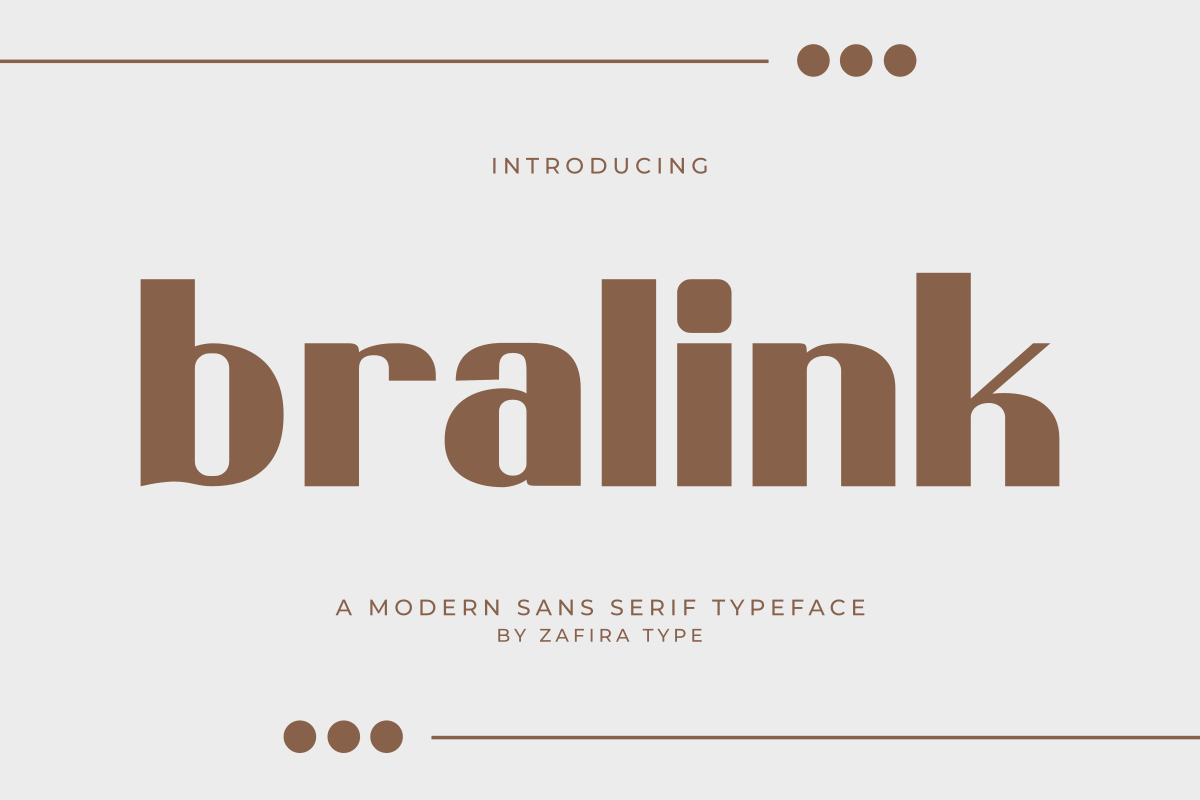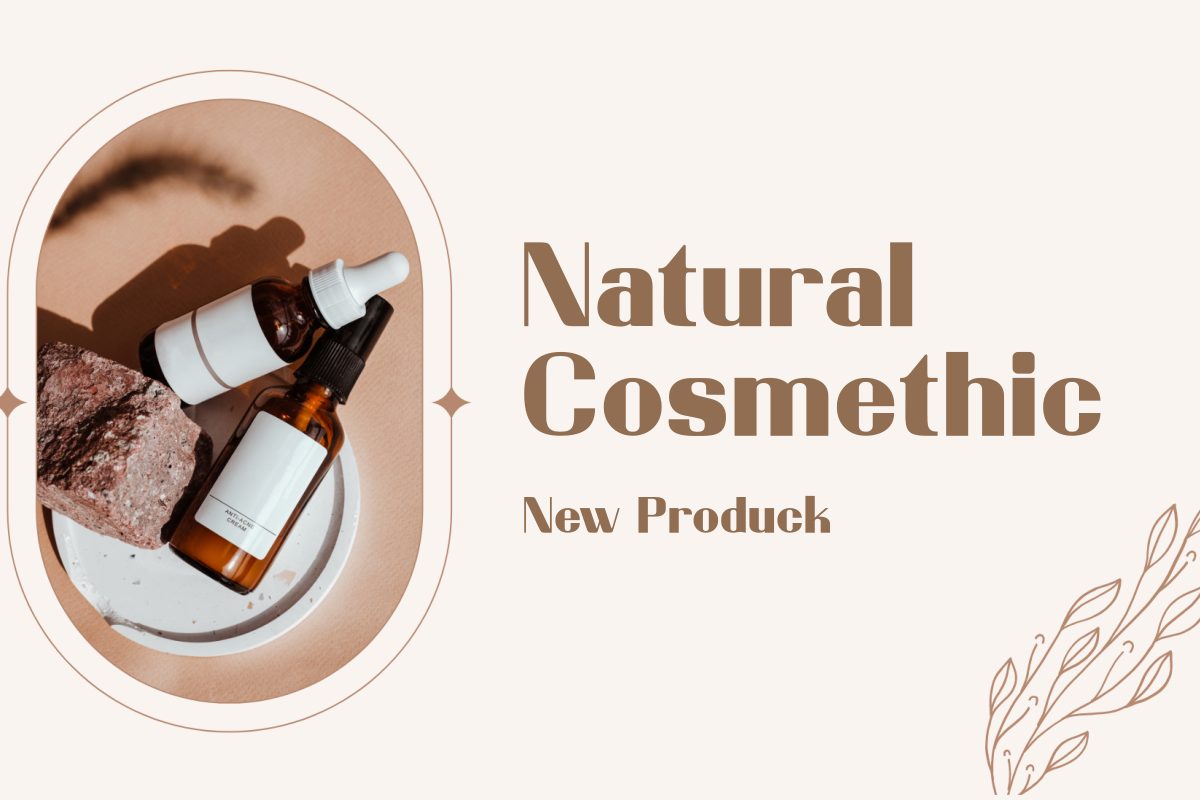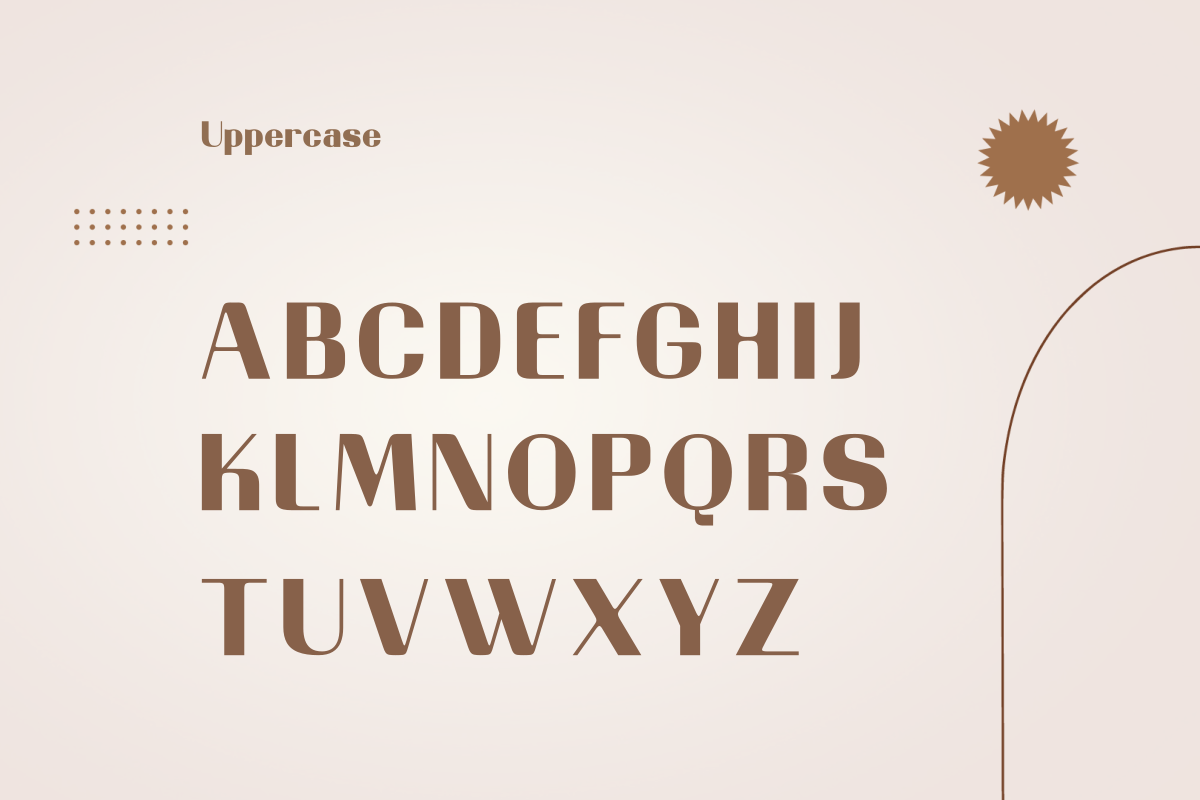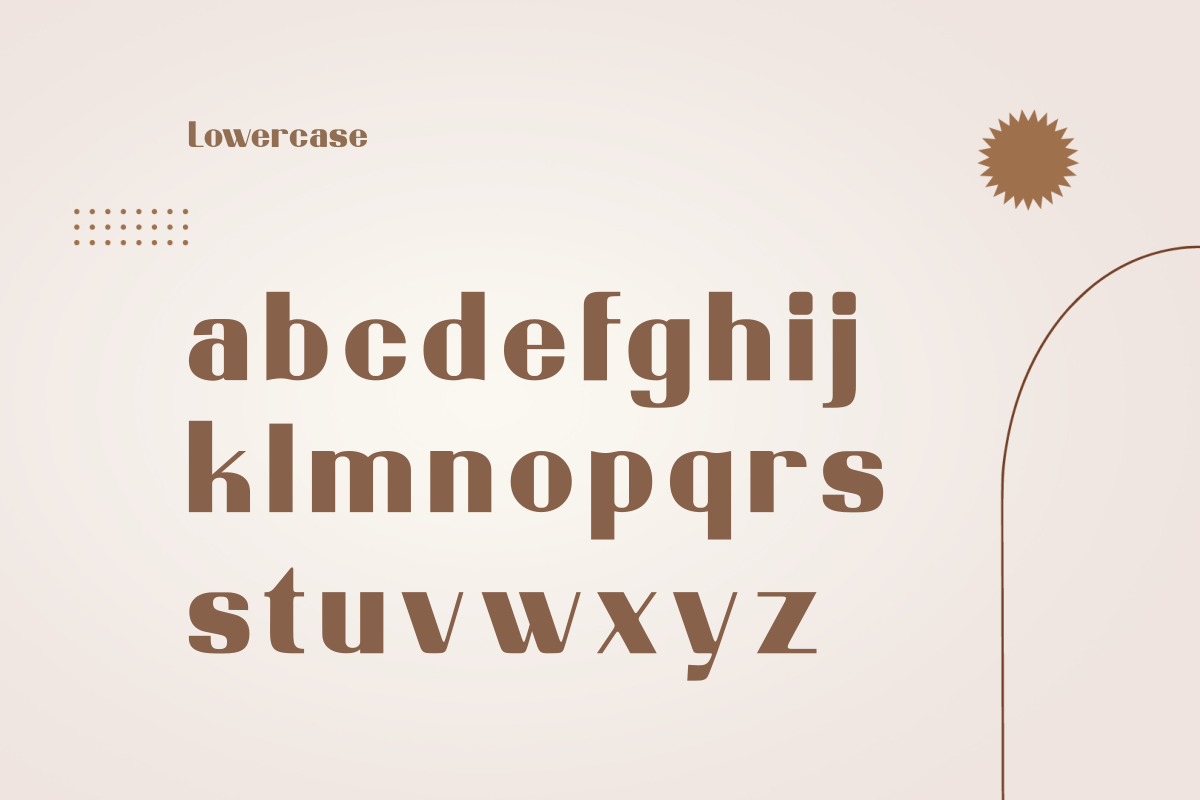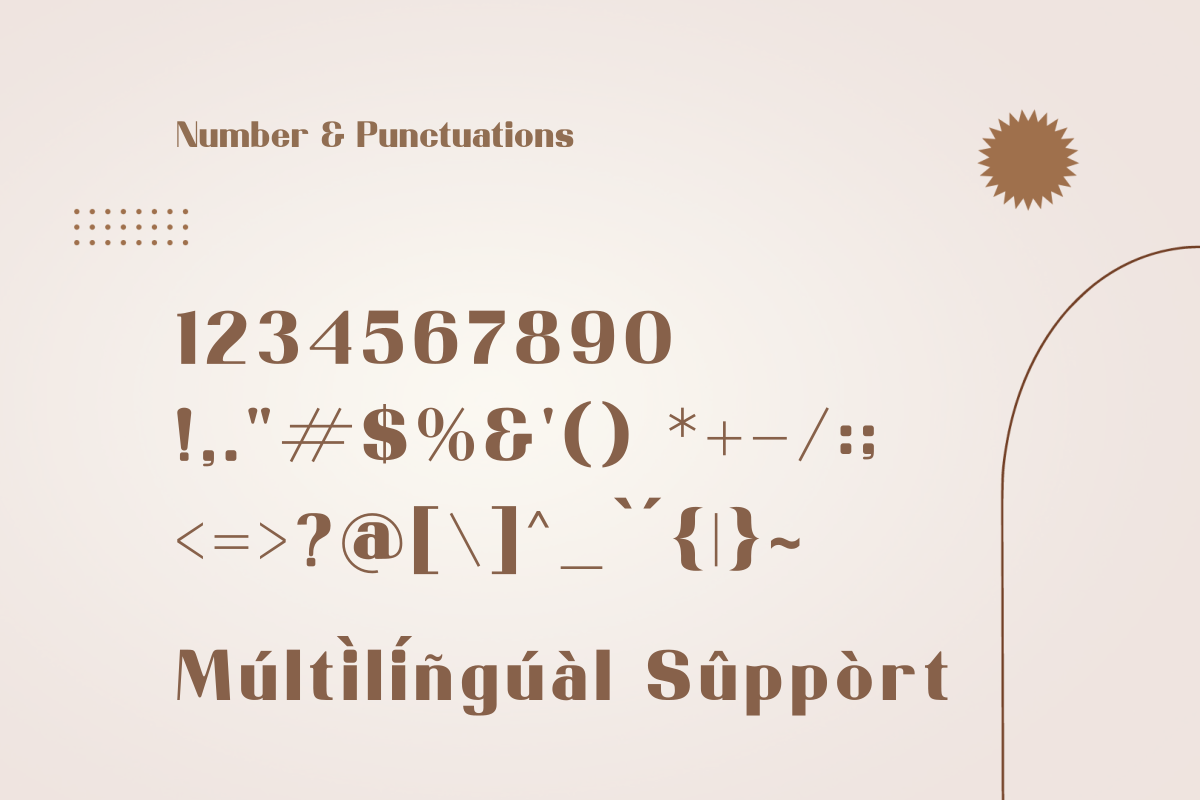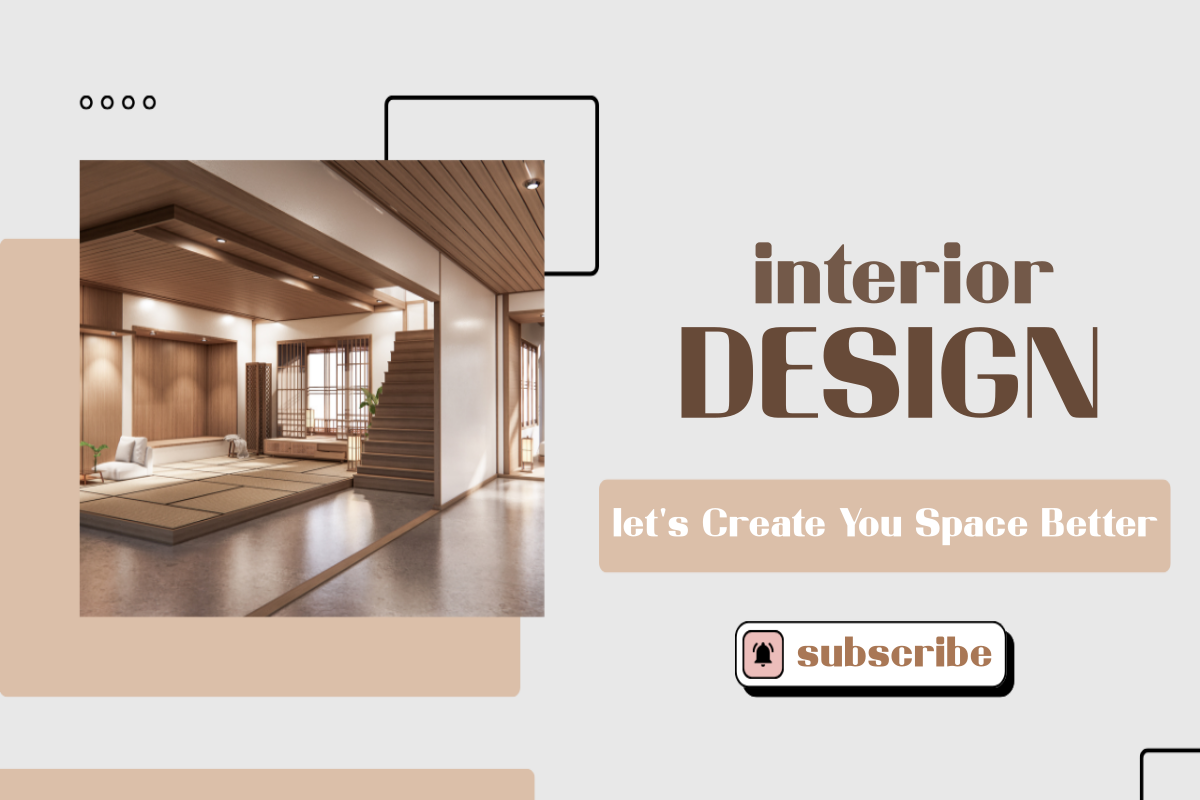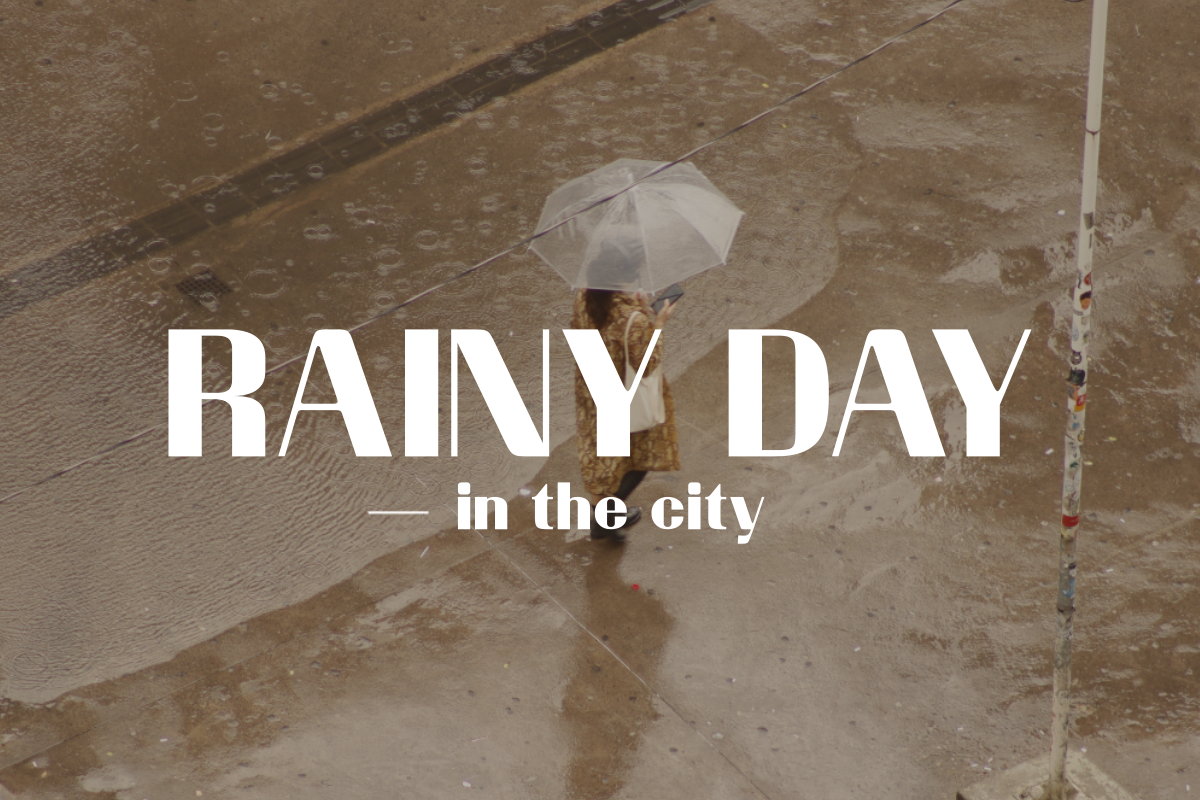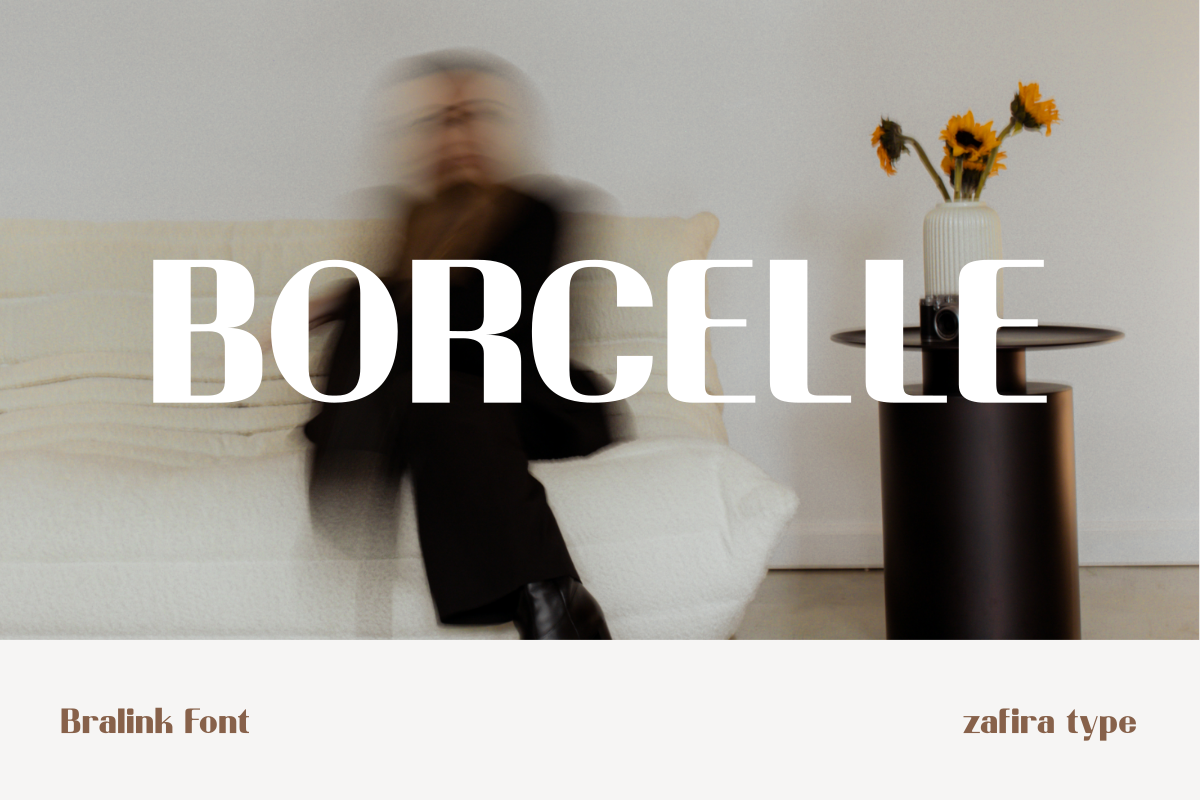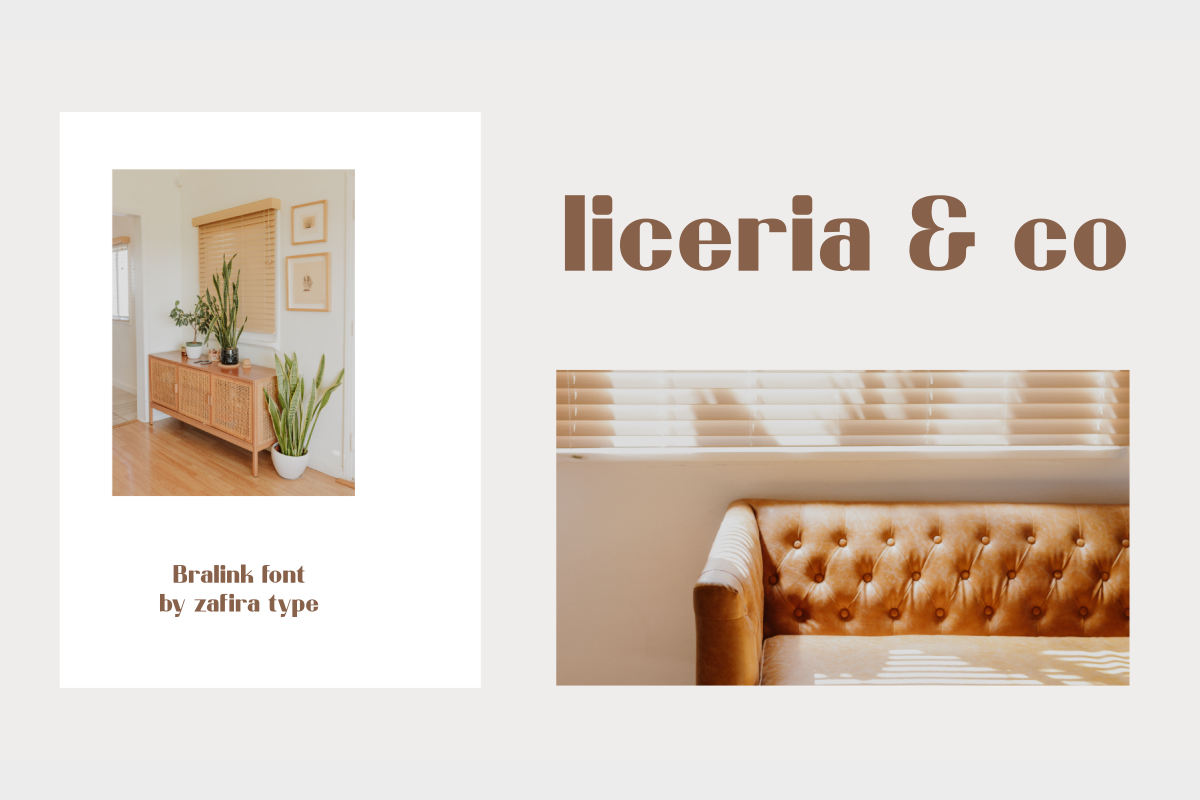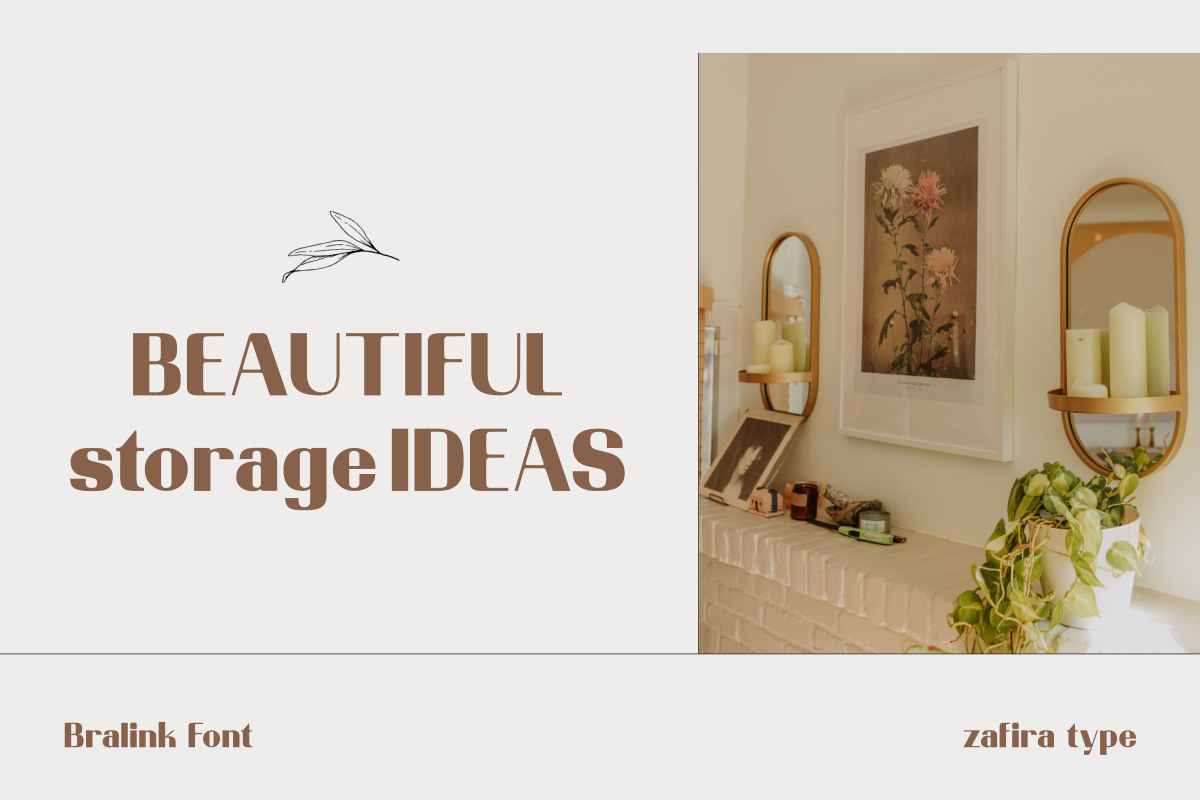
Bralink
Bralink is a modern sans serif font designed to bring a clean and minimalist look to any of your design projects. With its bold lines and balanced proportions, Bralink offers perfect clarity and readability for a variety of applications, from branding to web design. Bralink is the ideal choice for designers seeking a simple yet elegant typographic solution. Enhance your designs with the modern elegance and clarity that Bralink offers.